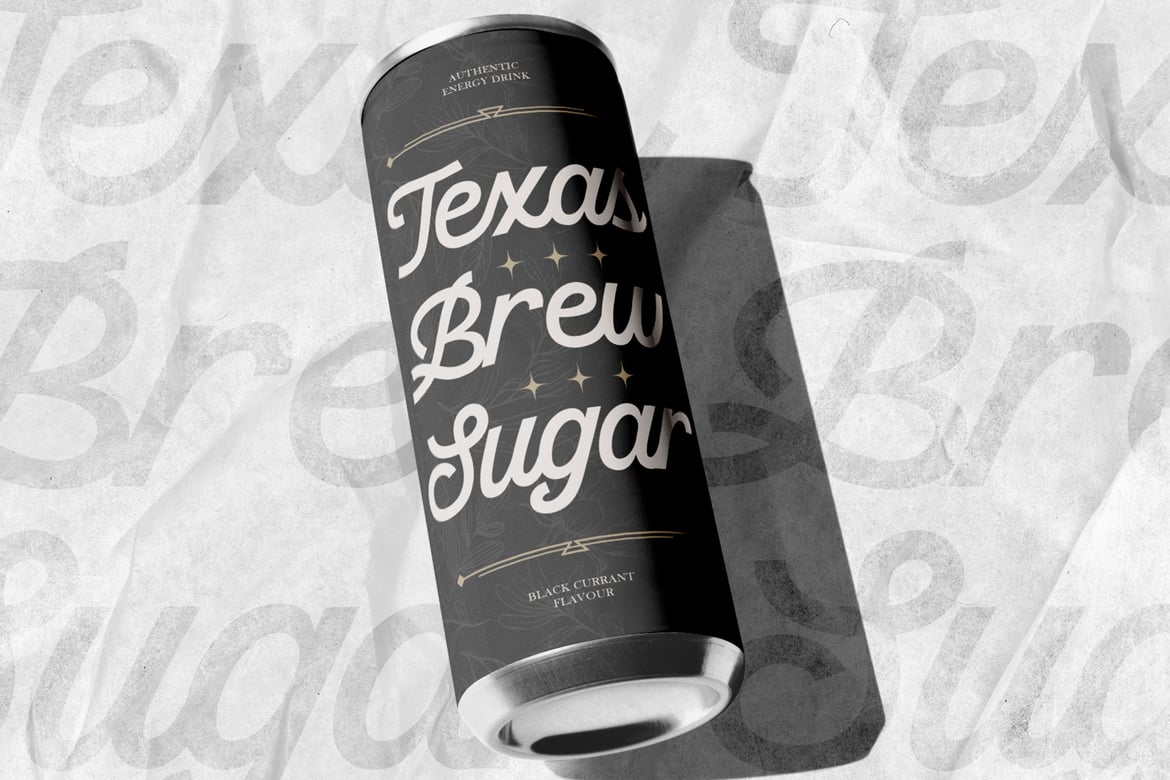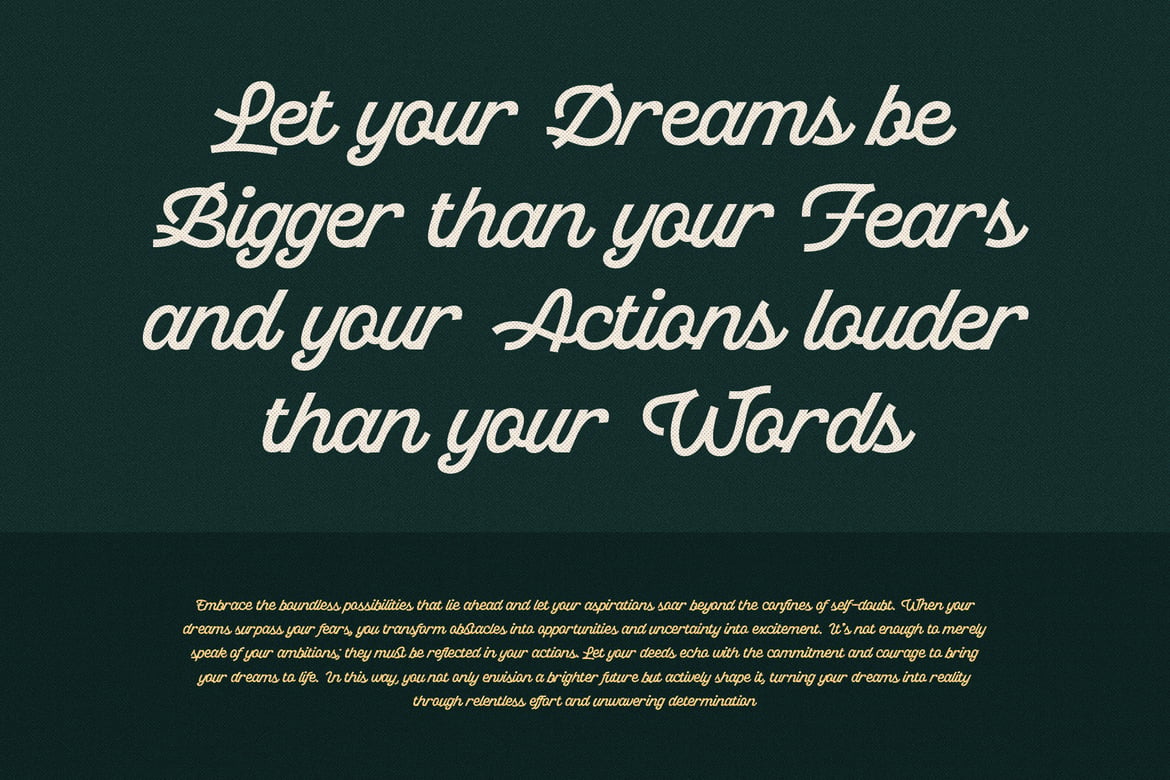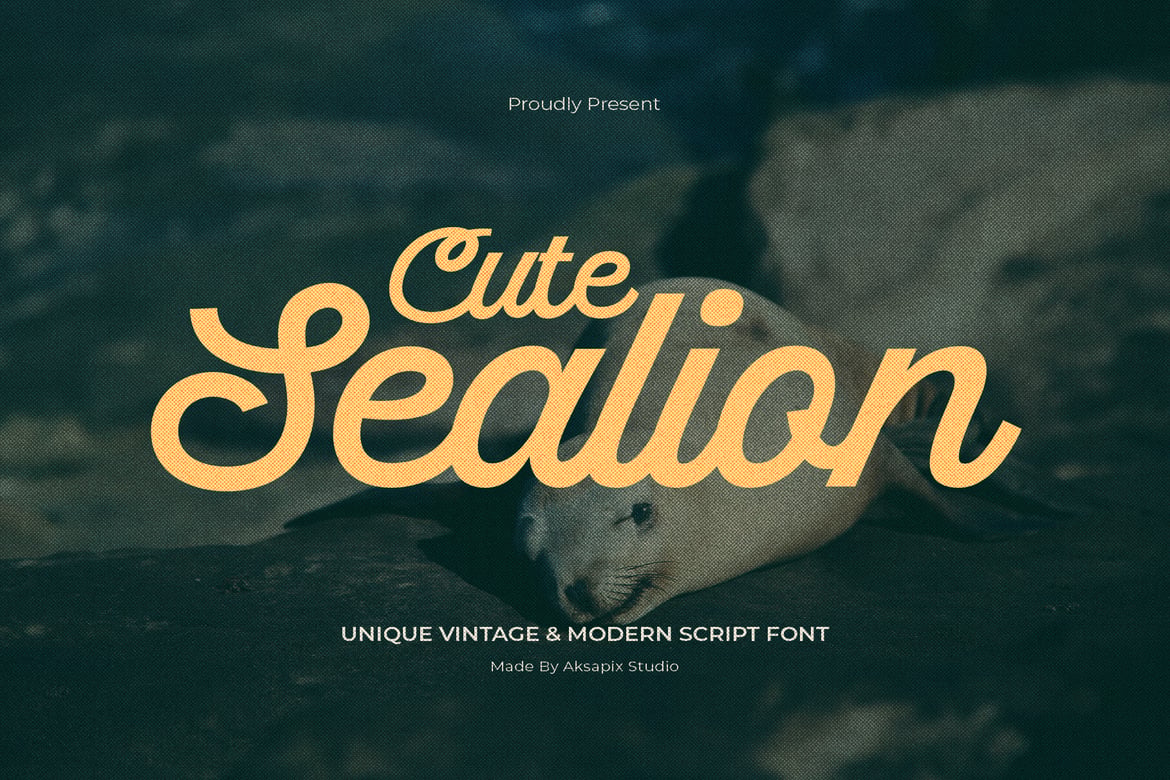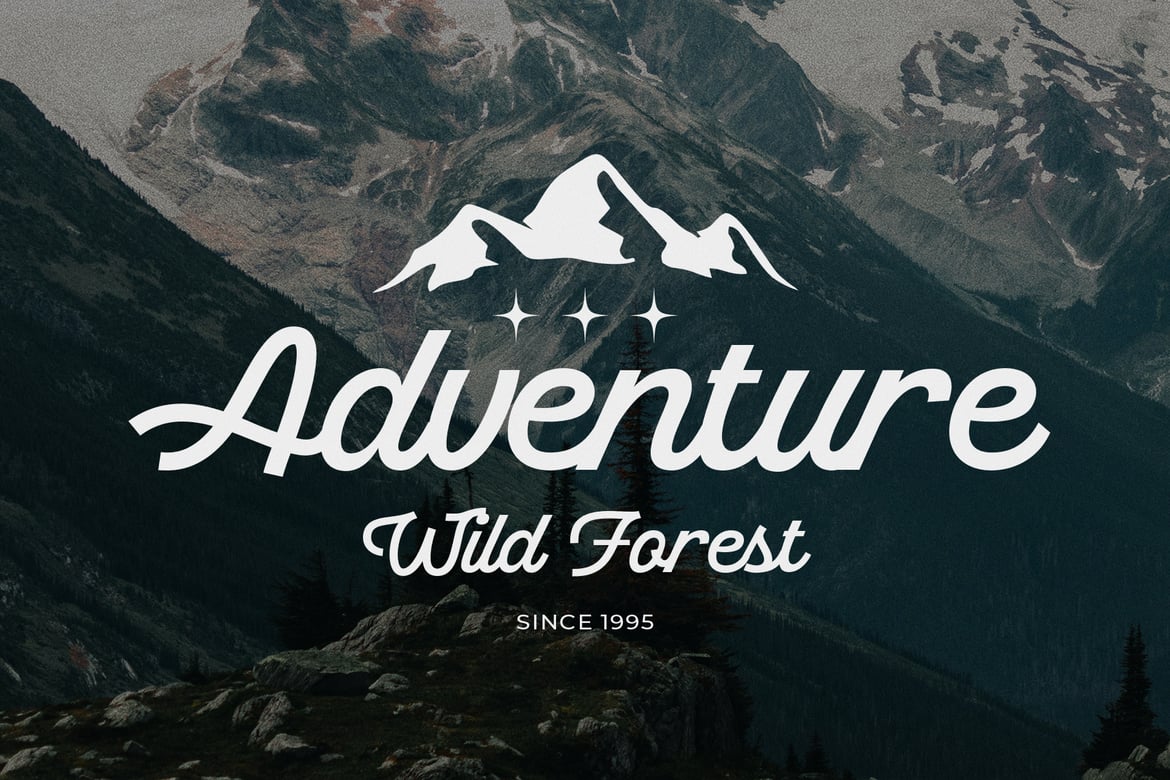
Cute Sealion – Unique Vintage & Modern Script Font
* Uppercase & Lowercase: Versatile character set for diverse typography needs.
* Punctuation: Complete set for polished and professional designs.
* Stylistic Alternates: Additional character variations for creative flexibility.
* Ligatures: Unique letter combinations for a more natural and connected look.
* Multilingual Support: Ensures compatibility with various languages and locales.